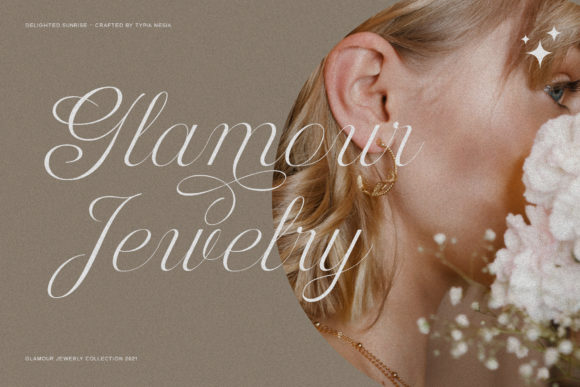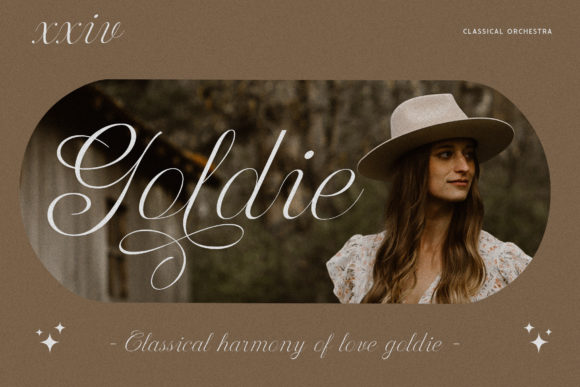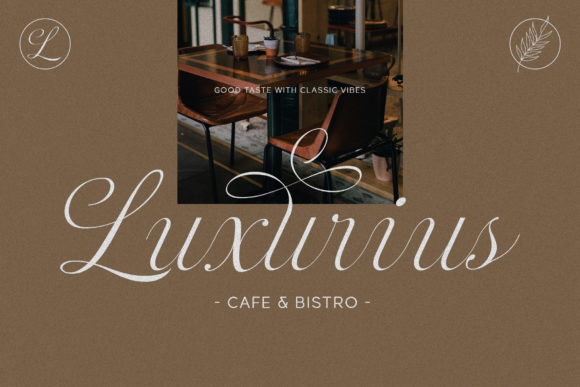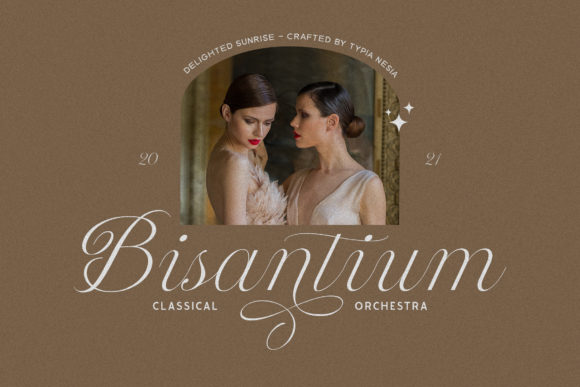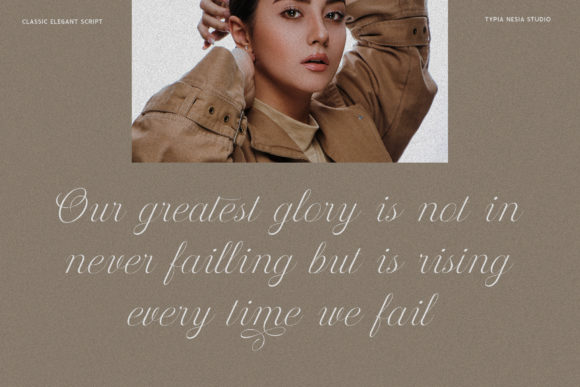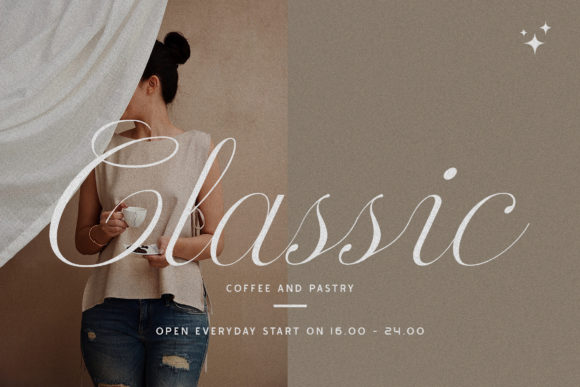
Introducing Delighted Sunrise: The Elegant Script Font for Your Creative Projects
Are you on the hunt for a font that exudes elegance, sophistication, and a touch of vintage charm? Look no further than Delighted Sunrise, a stunning script font that’s perfect for a wide range of creative projects. In this article, we’ll dive into the features and benefits of Delighted Sunrise, and explore how it can elevate your designs to the next level.
A Font Fit for Royalty
Delighted Sunrise is a vintage and elegant script font that’s designed to make a statement. Its gorgeous flow and intricate details make it an ideal choice for projects that require a touch of luxury and sophistication. Whether you’re working on a branding project for a high-end client, designing wedding invitations, or creating social media graphics, Delighted Sunrise is sure to impress.
Key Features of Delighted Sunrise
So, what sets Delighted Sunrise apart from other script fonts on the market? Here are just a few of its key features:
- Vintage and elegant design: Delighted Sunrise boasts a classic, sophisticated look that’s perfect for projects that require a touch of nostalgia and glamour.
- Gorgeous flow: The font’s beautiful flow makes it easy to read and visually appealing.
- PUA encoded: Delighted Sunrise is PUA encoded, which means you can access all glyphs and swashes with ease. This makes it simple to customize your text and add unique touches to your designs.
- Versatile: Delighted Sunrise is suitable for a wide range of projects, including branding, wedding design, blogging, social media, restaurant branding, invitation cards, and more.
Use Delighted Sunrise for Your Creative Projects
Delighted Sunrise is an incredibly versatile font that can be used for a wide range of creative projects. Here are just a few ideas to get you started:
- Royal branding: Delighted Sunrise is perfect for luxury brands that want to convey a sense of elegance and sophistication.
- Wedding design: The font’s vintage charm and elegant flow make it an ideal choice for wedding invitations, stationery, and other wedding-related designs.
- Blogging: Add a touch of sophistication to your blog with Delighted Sunrise. It’s perfect for bloggers who want to stand out from the crowd and establish a unique visual identity.
- Social media: Use Delighted Sunrise to create stunning social media graphics that are sure to grab attention.
- Restaurant branding: Delighted Sunrise is a great choice for restaurants that want to convey a sense of luxury and sophistication.
- Invitation cards: The font’s elegant flow and vintage charm make it perfect for creating beautiful invitation cards for special occasions.
Why Choose Delighted Sunrise?
So, why should you choose Delighted Sunrise for your creative projects? Here are just a few reasons:
- Unique and elegant design: Delighted Sunrise boasts a unique and elegant design that’s sure to make your projects stand out.
- Easy to use: The font is PUA encoded, making it easy to access all glyphs and swashes.
- Versatile: Delighted Sunrise is suitable for a wide range of projects, making it a great addition to any designer’s toolkit.
- High-quality: The font is designed to deliver high-quality results, ensuring that your projects look professional and polished.
In conclusion, Delighted Sunrise is a stunning script font that’s perfect for designers and crafters who want to add a touch of elegance and sophistication to their projects. With its vintage charm, gorgeous flow, and PUA encoding, it’s an ideal choice for a wide range of creative projects. Whether you’re working on a branding project, designing wedding invitations, or creating social media graphics, Delighted Sunrise is sure to impress. So why wait? Download Delighted Sunrise today and take your designs to the next level!